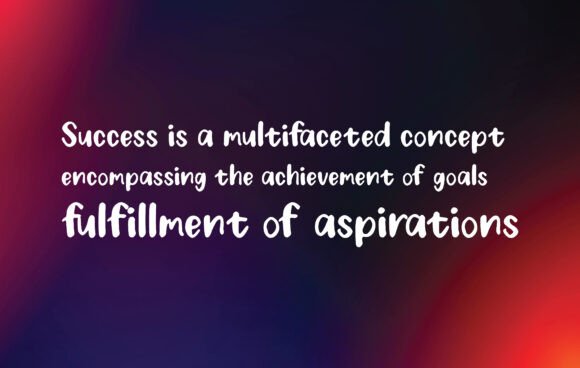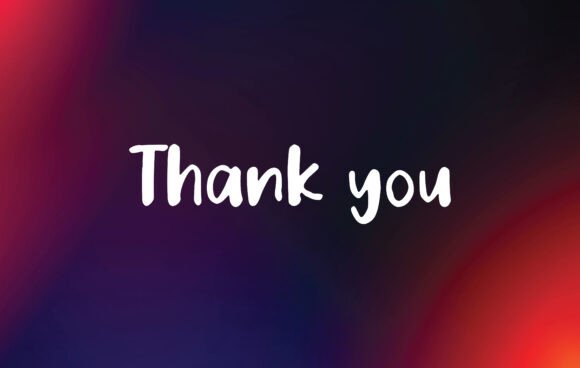
Introducing Hamster Font: Elevate Your Creative Projects with a Lovely Handwritten Style
Are you a designer, crafty enthusiast, or simply someone who appreciates beautiful typography? Look no further than the charming Hamster Font! This stunning handwritten font is designed to take your creative ideas to new heights, making it the perfect choice for a wide range of projects. In this article, we’ll dive into the world of Hamster Font, exploring its features, benefits, and uses, as well as provide tips on how to make the most of this gorgeous font.
What is Hamster Font?
Hamster Font is a lovely and beautiful handwritten font that exudes warmth and personality. Its unique, cursive style is perfect for adding a touch of whimsy and charm to any design. Whether you’re creating eye-catching logos, branding materials, quotes, or social media graphics, Hamster Font is the ideal choice. Its versatility and legibility make it suitable for a wide range of applications, from digital projects to print materials.
Key Features of Hamster Font
- Handwritten style: Hamster Font boasts a beautiful, handwritten look that’s perfect for creating personal and engaging designs.
- Unique character set: Each letter, number, and symbol has been carefully crafted to ensure a consistent and stylish appearance.
- Easy to read: Despite its decorative nature, Hamster Font remains highly legible, making it suitable for body text and captions.
- Scalable: This font performs beautifully at various sizes, from large headings to smaller text.
Benefits of Using Hamster Font
So, why choose Hamster Font for your next project? Here are just a few benefits of using this lovely font:
- Adds personality: Hamster Font brings a touch of warmth and personality to your designs, helping you connect with your audience.
- Enhances creativity: With its unique style, Hamster Font inspires creativity and imagination, helping you think outside the box.
- Versatile: This font can be used in a wide range of projects, from logos and branding to social media graphics and blog posts.
- Easily pairs with other fonts: Hamster Font combines beautifully with other fonts, allowing you to create stunning font combinations.
Tips for Using Hamster Font
To get the most out of Hamster Font, here are some expert tips:
- Use it as a headline font: Hamster Font is perfect for creating eye-catching headings and titles that grab attention.
- Pair it with a sans-serif font: Combine Hamster Font with a clean, sans-serif font for a beautiful contrast that adds visual interest.
- Experiment with colors: Hamster Font looks stunning in a range of colors, from bold and bright to soft and pastel.
- Don’t be afraid to get creative: With Hamster Font, you can add your own personal touch to designs, making them truly unique.
Who Can Benefit from Hamster Font?
Hamster Font is perfect for a wide range of creatives, including:
- Graphic designers: Add a touch of elegance and sophistication to your designs with this beautiful font.
- Crafty enthusiasts: Use Hamster Font to create stunning handmade cards, gift tags, and other paper crafts.
- Social media influencers: Elevate your social media graphics and blog posts with this gorgeous font.
- Small business owners: Create a strong brand identity with Hamster Font, perfect for logos, branding, and marketing materials.
In conclusion, Hamster Font is a beautiful, handwritten font that’s perfect for taking your creative projects to the next level. Its unique style, versatility, and legibility make it an excellent choice for designers, crafty enthusiasts, and anyone looking to add a touch of personality to their designs. With its wide range of applications and benefits, Hamster Font is sure to become a favorite in your font collection.